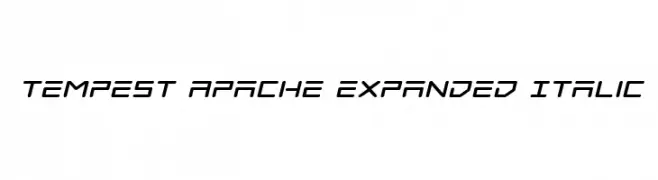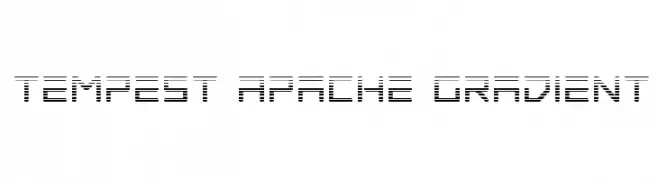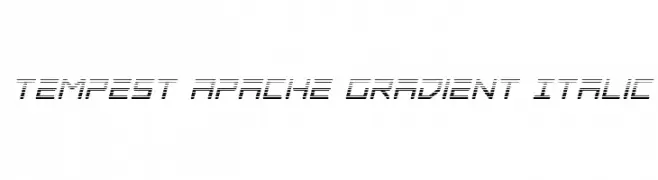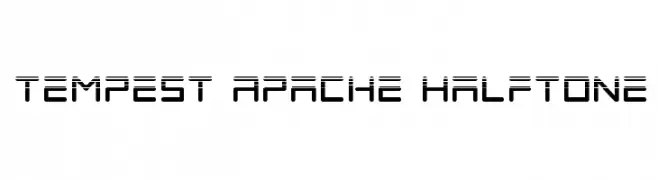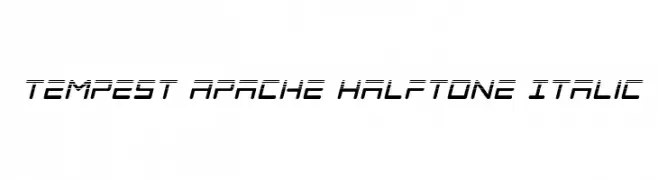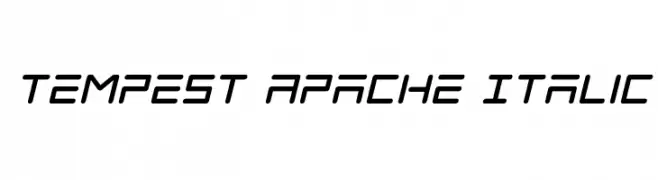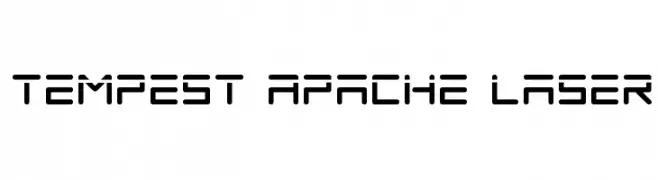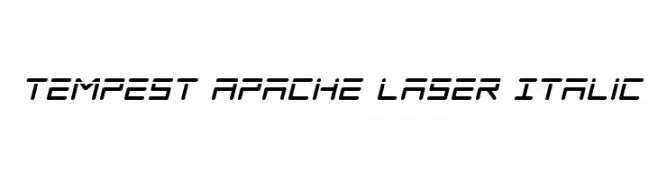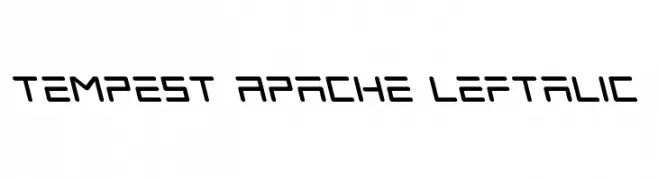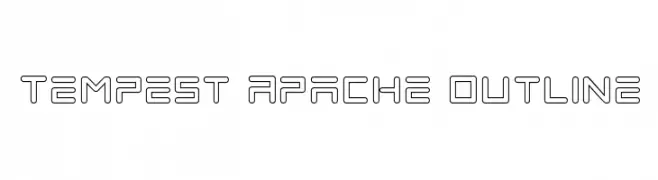
A futuristic, expanded italic font with a sleek, geometric design.
A futuristic, gradient-lined font with a digital, sci-fi aesthetic.
A futuristic, italicized font with a gradient stripe effect, perfect for dynamic and modern designs.
A futuristic, geometric font with a halftone pattern and bold, angular design.
A futuristic, italicized font with a halftone effect and geometric design.
A modern, angular font with a futuristic and dynamic design.
A futuristic, geometric font with angular and sharp edges.
A futuristic, angular font with a slanted, italicized style.
A futuristic, angular font with geometric shapes and consistent stroke width.
A modern, geometric outline font with a futuristic and technical style.